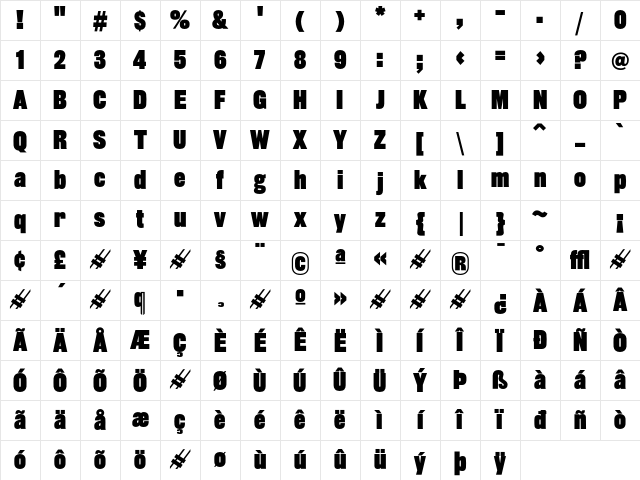
Rhode BoldCondensed
Style: BoldCondensed
Rhode Family
Rhode BoldCondensed
Complete Rhode BoldCondensed glyph index. Displaying only characters natively supported by Rhode BoldCondensed font.
Design Context for Rhode
Rhode is a composed and adaptable typeface that performs quietly and consistently across a wide range of design contexts. Its bold stroke weight gives it real presence on the page. Its narrow stance lets it pack a punch even in space-constrained designs.